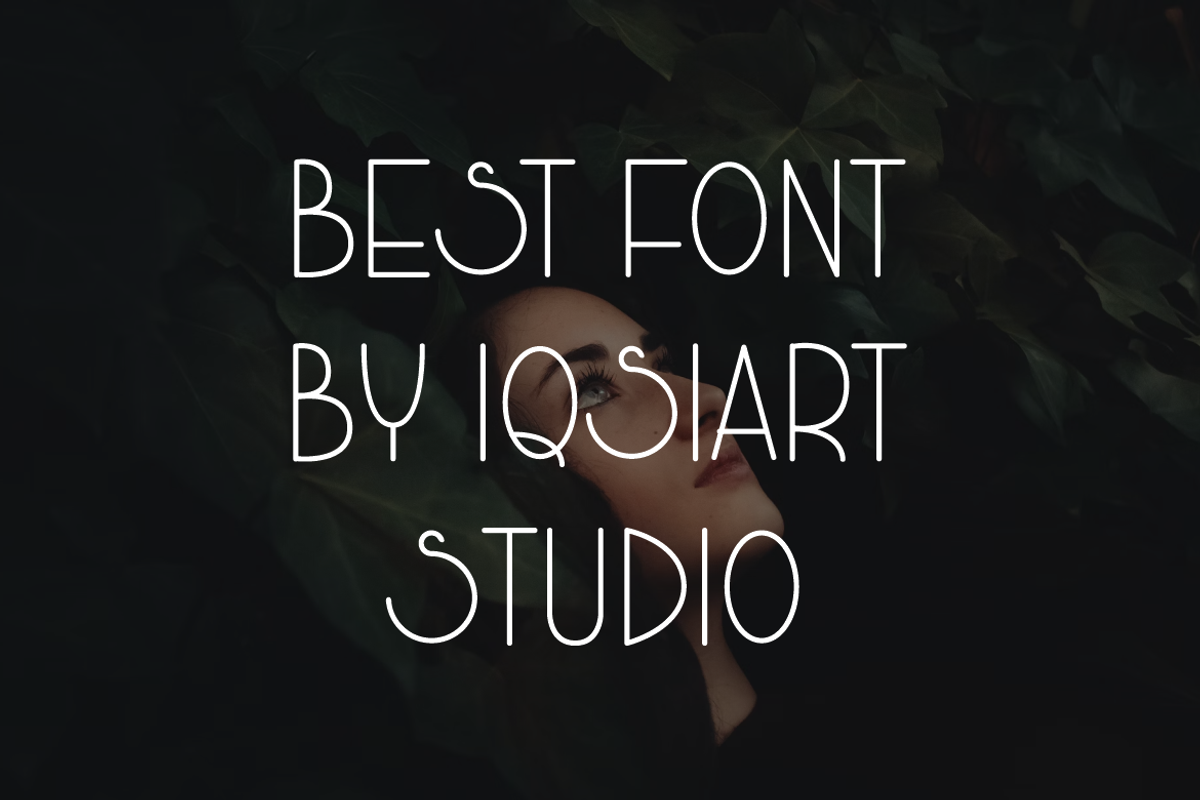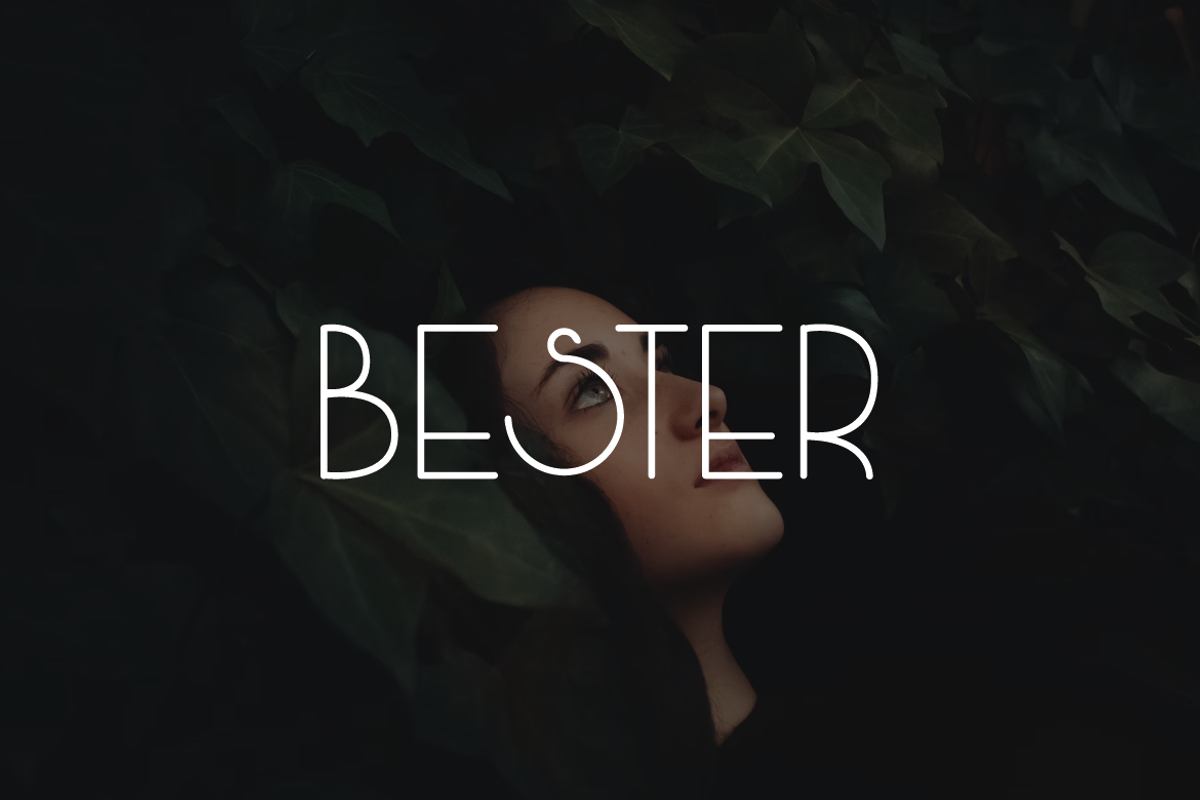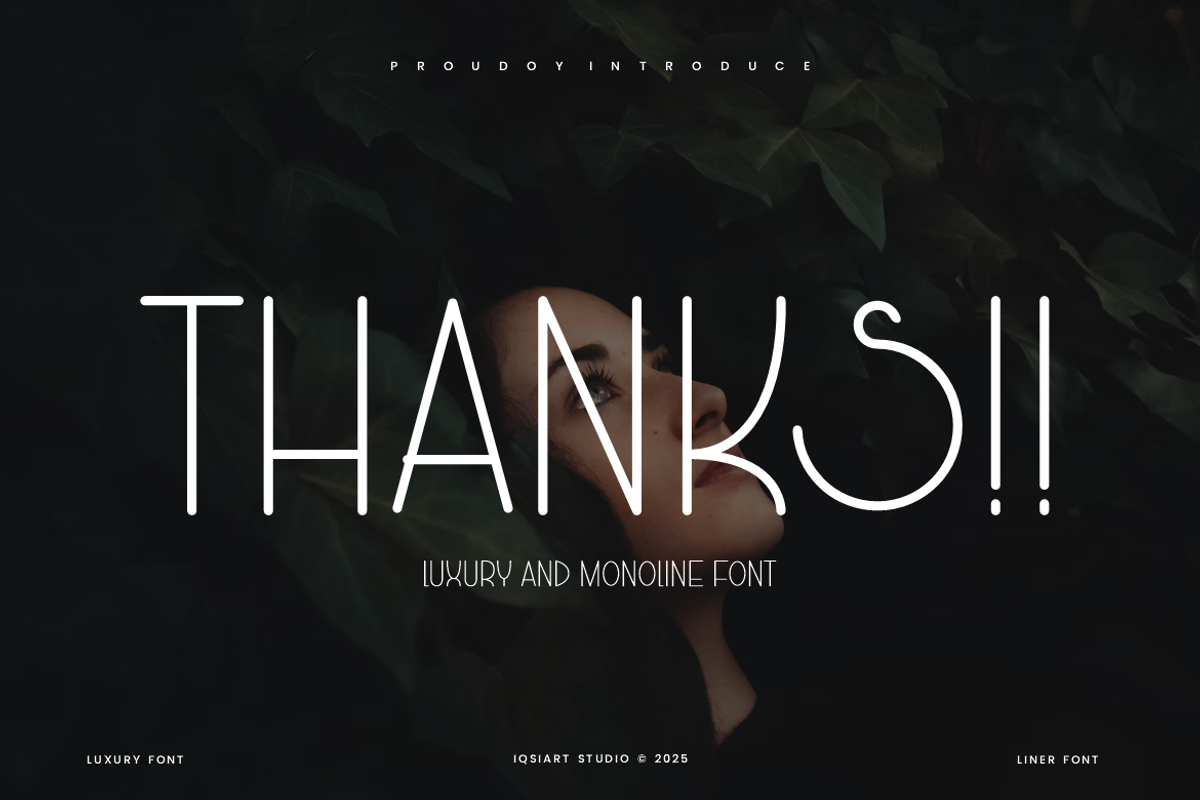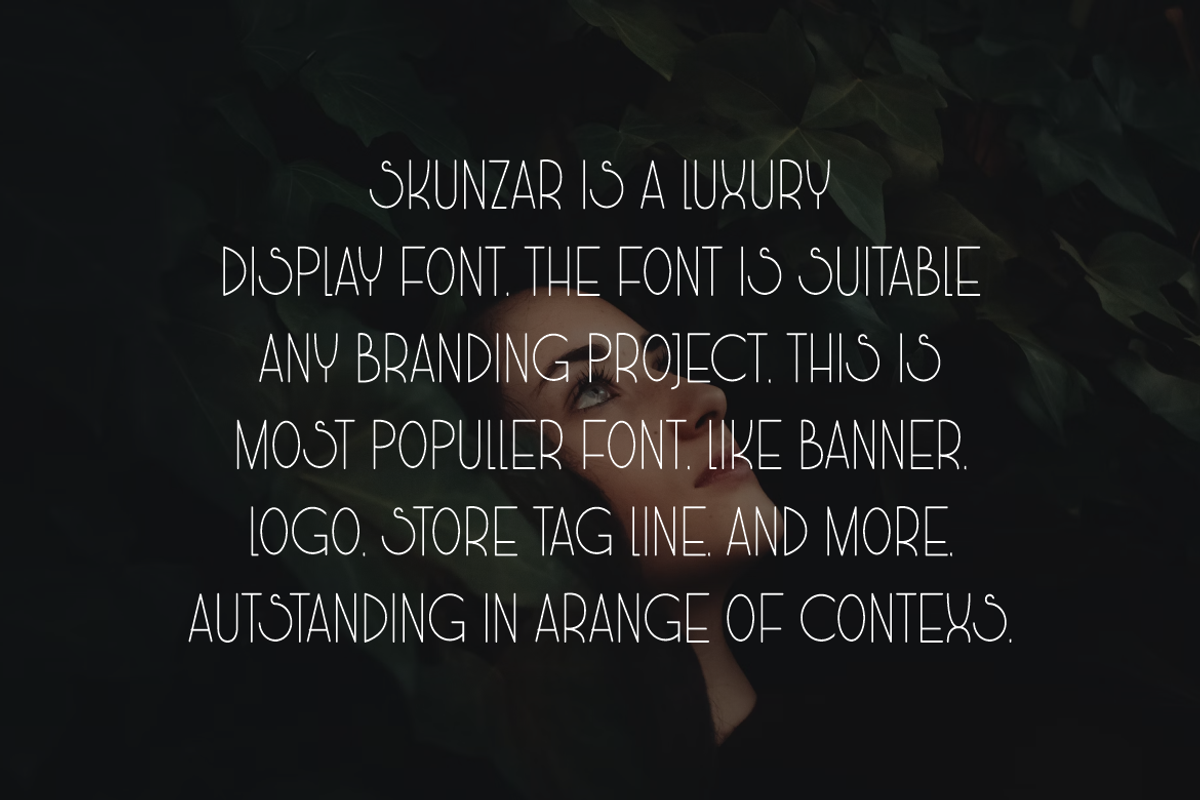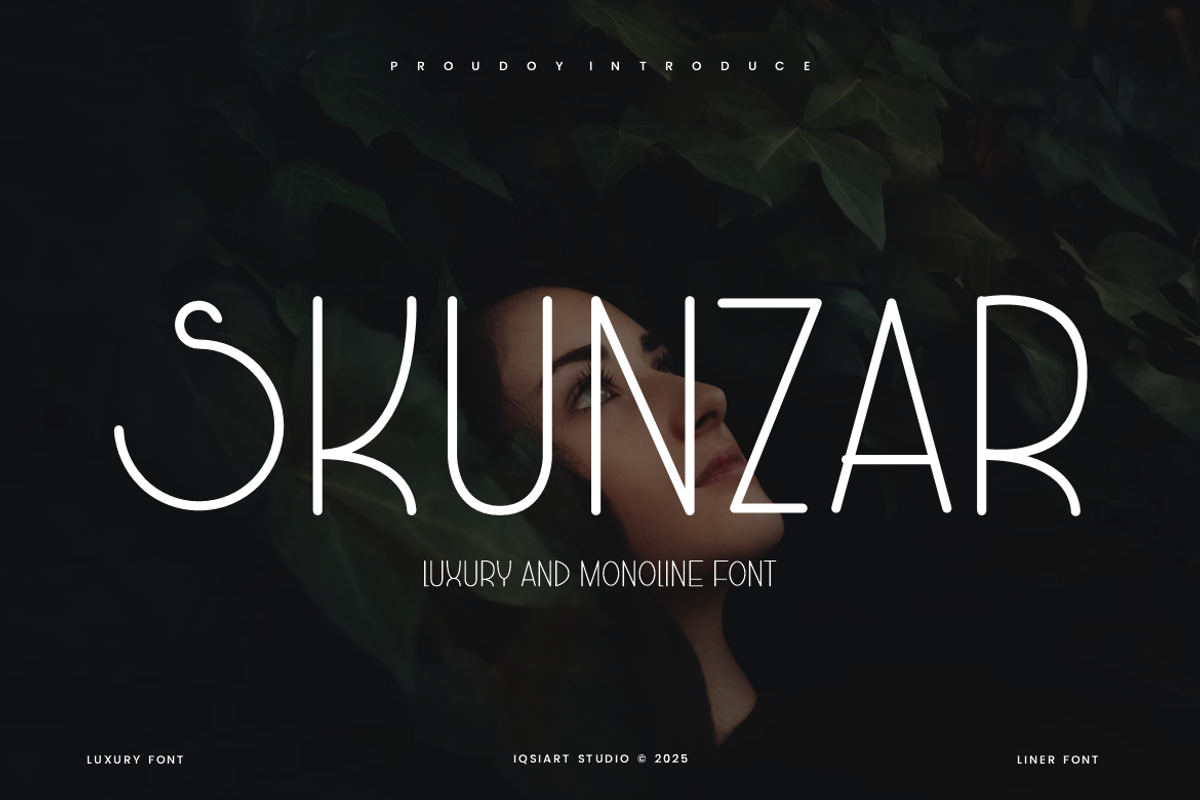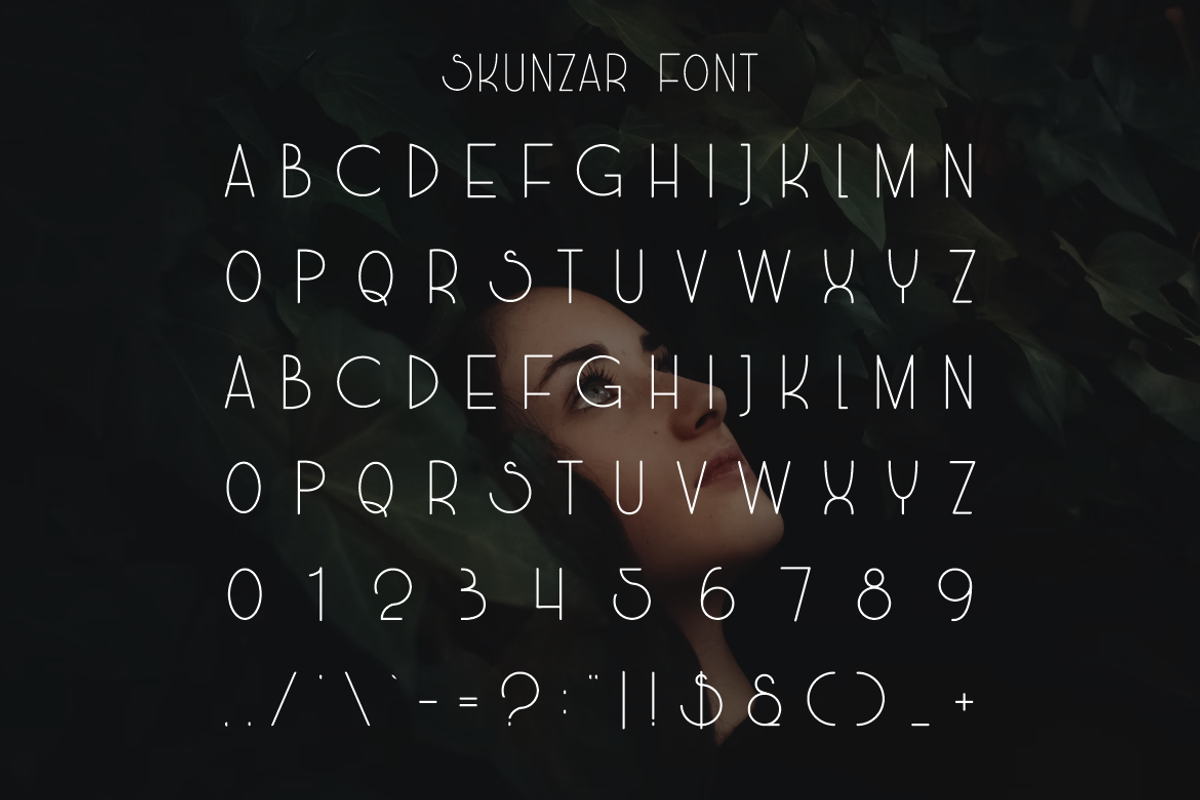
Skunzar - Monoline Font
Skunzar Font is a best and authentic display font. This font can be used for your various needs. We provide various themes and font styles. visit our profile to get a wide variety of themes and different font styles you need.